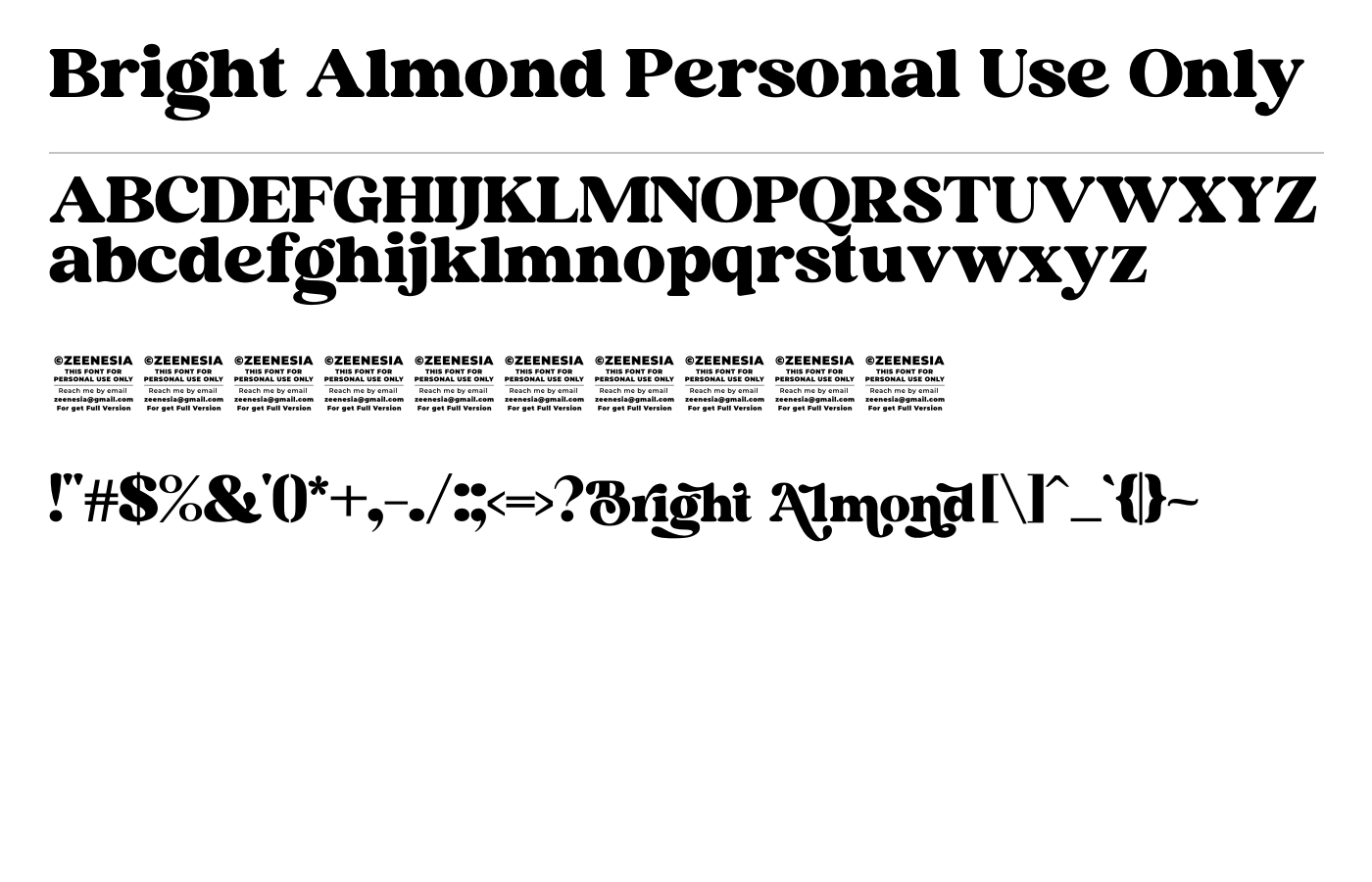
Bright Almond is a bold serif font with a strong presence, featuring thick, high-contrast strokes and distinctive bracketed serifs that combine a touch of elegance with a vintage flair. Its compact letterforms and doubled-story characters give it a classic, sturdy feel, making it well-suited for eye-catching headlines, logos, and branding that aim to communicate confidence and timeless style. This font works beautifully in fashion, editorial, and packaging design where a blend of traditional charm and bold impact is desired.
Bright Almond Personal Use Only Font
About Bright Almond Personal Use Only Font
| Font family | Bright Almond Personal Use Only Font |